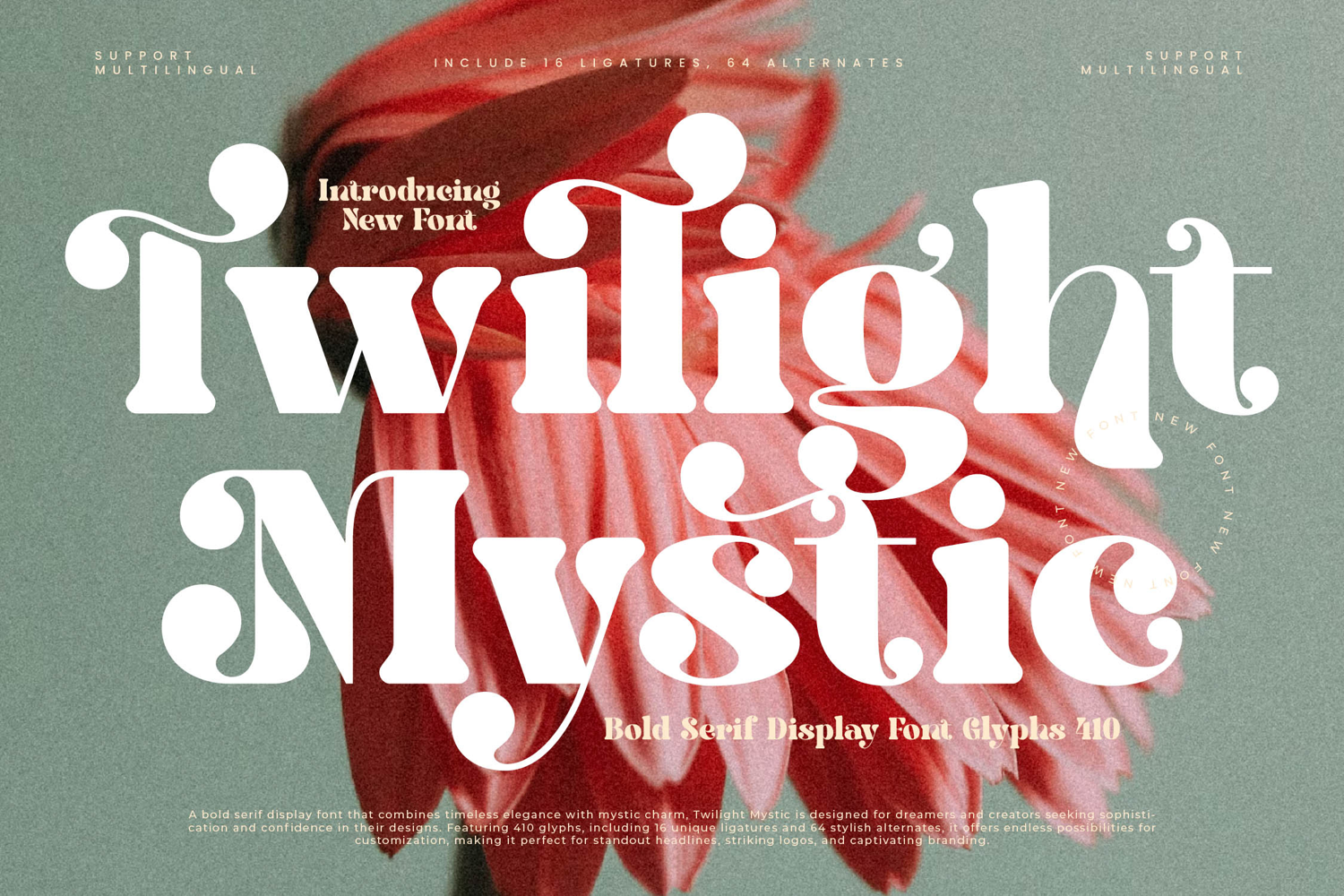
Twilight Mystic - Bold Serif Display Font
Twilight Mystic is a bold serif display font that combines timeless elegance with a touch of mystic artistry. Its high-contrast strokes, dramatic curves, and ornamental details create a distinctive typeface that feels both bold and enchanting. Designed with 16 ligatures, 64 alternates, and 410 total glyphs, Twilight Mystic offers designers endless creative possibilities to customize and elevate their projects with style and individuality.
This font shines in headline typography, where its bold and ornate forms make a striking impression on posters, banners, and editorial layouts. In branding and logo design, Twilight Mystic communicates refinement and allure, making it ideal for luxury brands, beauty products, artisanal goods, and lifestyle businesses that want to project sophistication and mystique. Its stylish character also makes it a powerful choice for packaging design, particularly for perfumes, wines, cosmetics, and gourmet items where typography must reflect exclusivity and charm.
Twilight Mystic thrives in advertising campaigns, event promotions, and wedding invitations, where its alternates and ligatures bring artistry and individuality. On social media and digital platforms, it adds a polished editorial touch, ensuring designs stand out with elegance and modern appeal.
With multilingual support, Twilight Mystic adapts seamlessly to international projects, extending its versatility across global markets.
Ultimately, Twilight Mystic is more than a display font—it is a visual signature of elegance, creativity, and mystic beauty. Whether applied to editorials, branding, packaging, or digital media, it ensures every project carries an unforgettable, stylish presence.